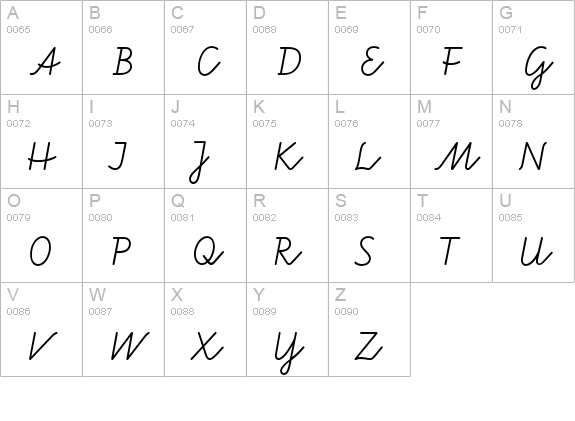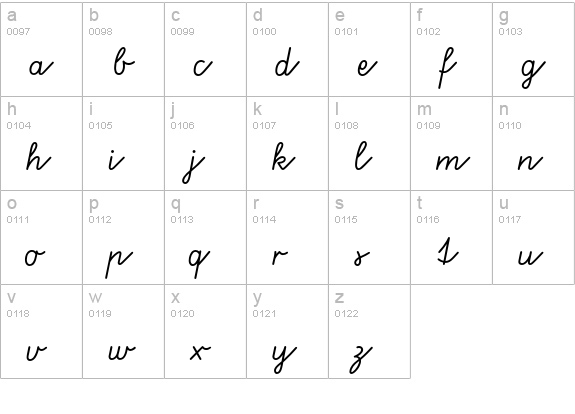
The Vereinfachte Lateinische Ausgangsschrift font is a beautifully designed typeface that combines elegance and simplicity. Its clean and legible letterforms make it an ideal choice for a wide range of design projects, from print materials to digital interfaces. This font is inspired by the simplified Latin cursive handwriting style, which is widely used in German-speaking countries for teaching children how to write. The Vereinfachte Lateinische Ausgangsschrift font captures the essence of this writing style, with its smooth curves and flowing strokes. One of the best features of the Vereinfachte Lateinische Ausgangsschrift font is that it is available for free download at FontsMarket.com. This means that anyone can easily access and use this font in their projects, without any restrictions. Whether you are a student, a teacher, or a designer, you can freely download and use the Vereinfachte Lateinische Ausgangsschrift font to enhance your work. In addition to its aesthetic appeal, the Vereinfachte Lateinische Ausgangsschrift font also offers great readability. Its clear and well-defined letterforms ensure that your text will be easily legible, even at small sizes or on low-resolution screens. The versatility of the Vereinfachte Lateinische Ausgangsschrift font is another reason why it is highly recommended. It can be used in a variety of design applications, such as logos, posters, invitations, and website headers. Its timeless and classic design makes it suitable for both formal and informal contexts. Overall, the Vereinfachte Lateinische Ausgangsschrift font is a must-have for anyone looking to add a touch of elegance and sophistication to their designs. With its freely available download at FontsMarket.com, it is easily accessible to everyone. So go ahead and explore the possibilities of this beautiful font in your next project!